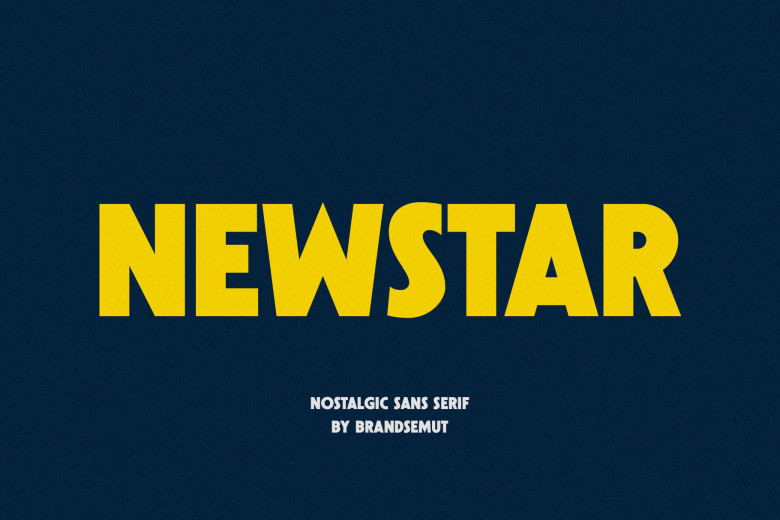
Newstar Font
Newstar – A Modern Sans Serif, Ideal for use as display and headings, logo, branding, magazines, product packaging, and invitation and more. Newstar comes with clean lines and smooth curves to add an extra bit of emphasis on an extraordinary work.
Newstar Sans Serif Font